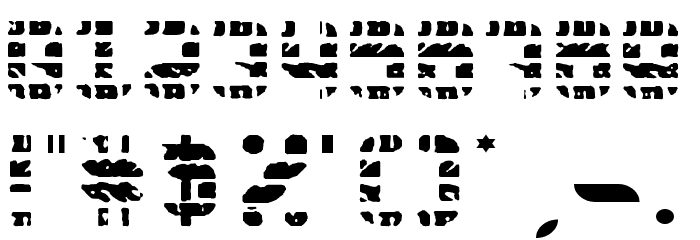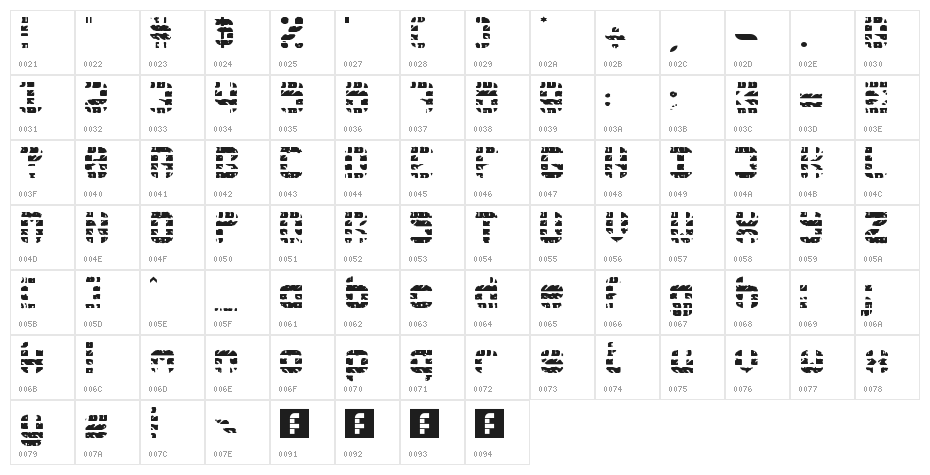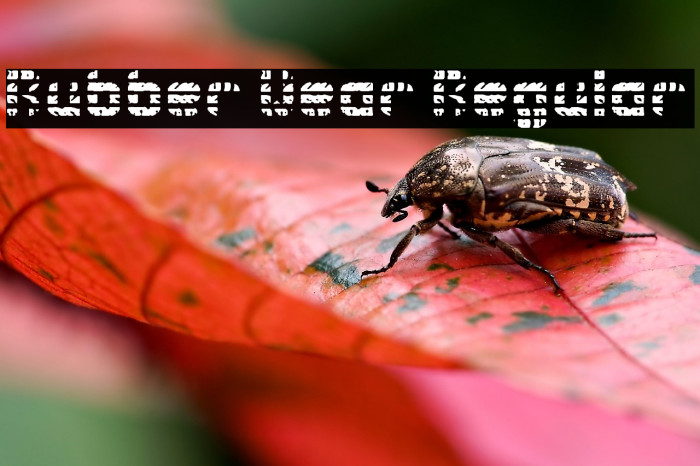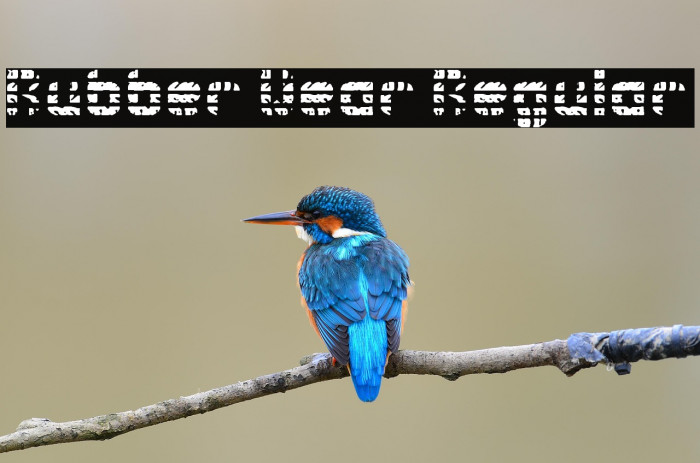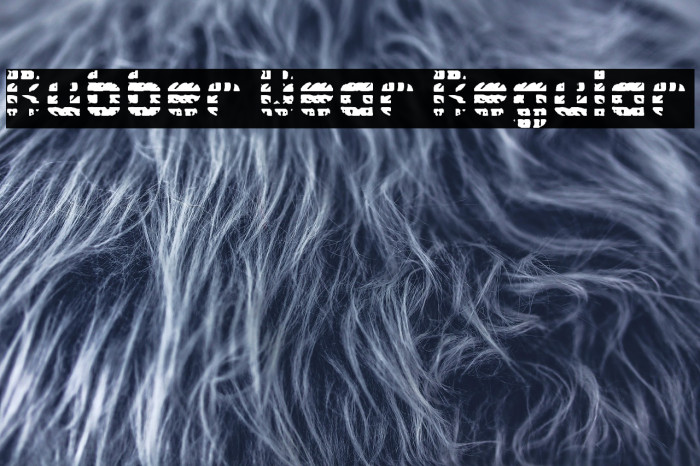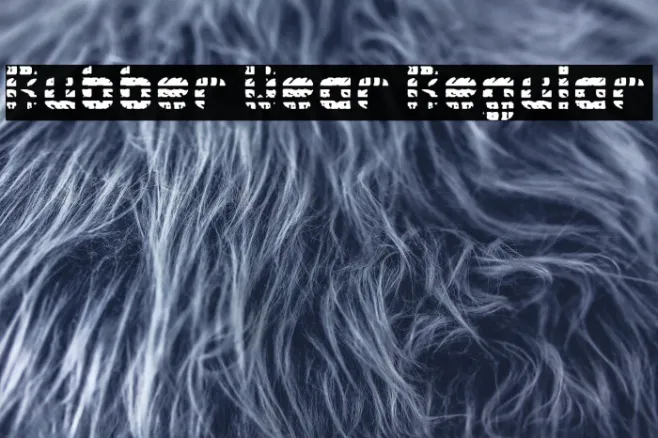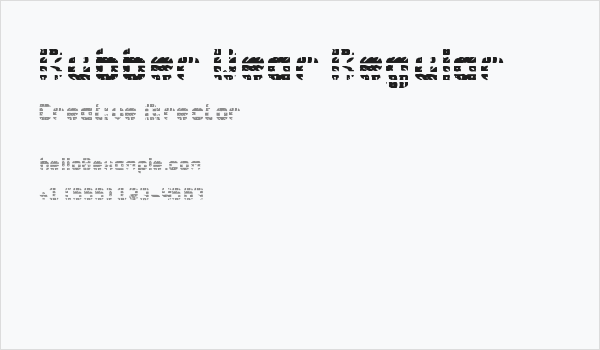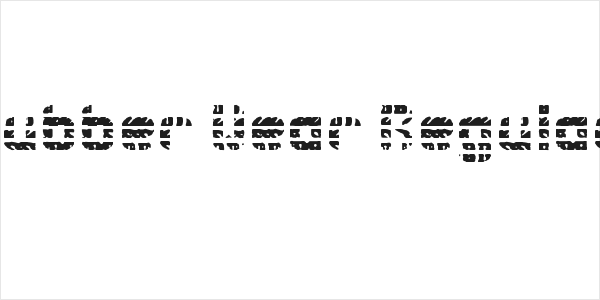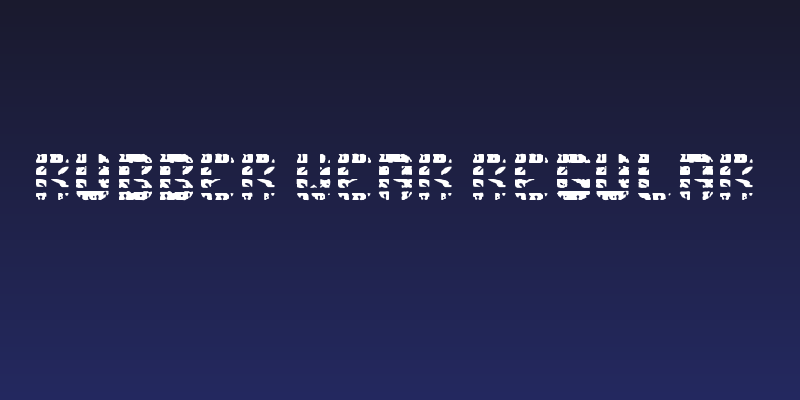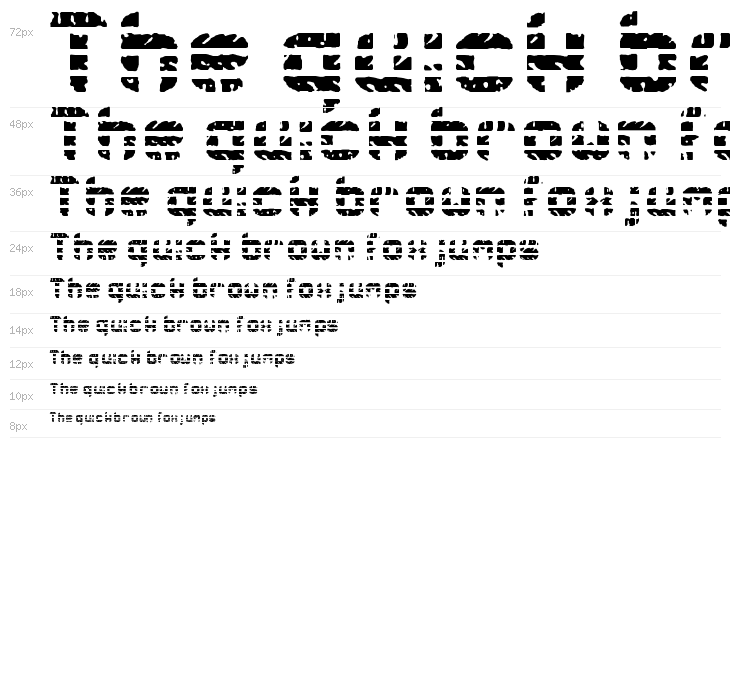
Rubber Wear Regular Font
Rubber Wear Regular Description
This font features a unique distressed and worn appearance, reminiscent of aged rubber stamps. Each character is marked by irregular, jagged edges and a textured surface, giving it a rugged and industrial feel. The design is bold and impactful, with a strong presence that commands attention. Despite its rough exterior, the font maintains legibility, making it suitable for various creative applications. The uppercase and lowercase letters are consistent in style, with numbers and special characters following the same distressed theme. This font is perfect for projects that require a vintage or grunge aesthetic.
| Proposed Projects | Ideal for vintage posters, album covers, branding for edgy products, or any design needing a grunge aesthetic. |